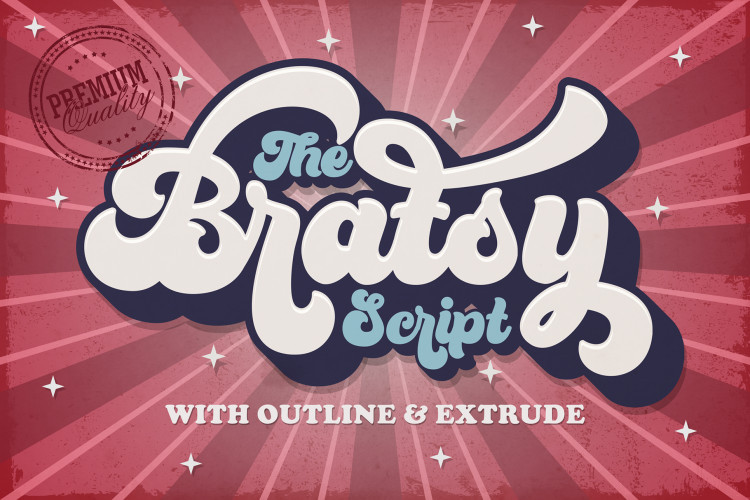
Bratsy Bold Script Font
A layered clean brush script font, this font is used with layers method, so it can generate interesting fonts to see, you no longer need to worry about how to make effect on the text. Introducing Bratsy Font!  It is design and shared by figuree studio. It’s a layered bold script with the outline and extrude, inspired by a Retro aesthetic. Made in combination with hand lettering, it comes with dramatic movement and it’s great for any next creative project that needs a retro vibe or modern touch. Bratsy Script is suitable to use as a logotype, product designs, label, watermark, social media posts, apparel, invitation, signboard, sports club, motor/car, special events or anything that need handwriting taste.